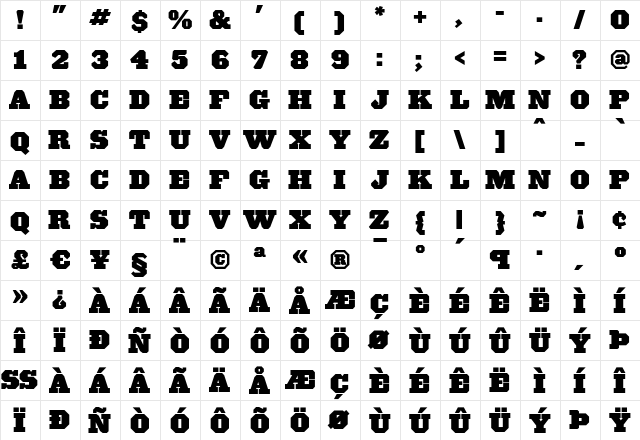
KnoxLayers Regular
Design Context for KnoxLayers Typeface
KnoxLayers is a composed and adaptable typeface that performs quietly and consistently across a wide range of design contexts.